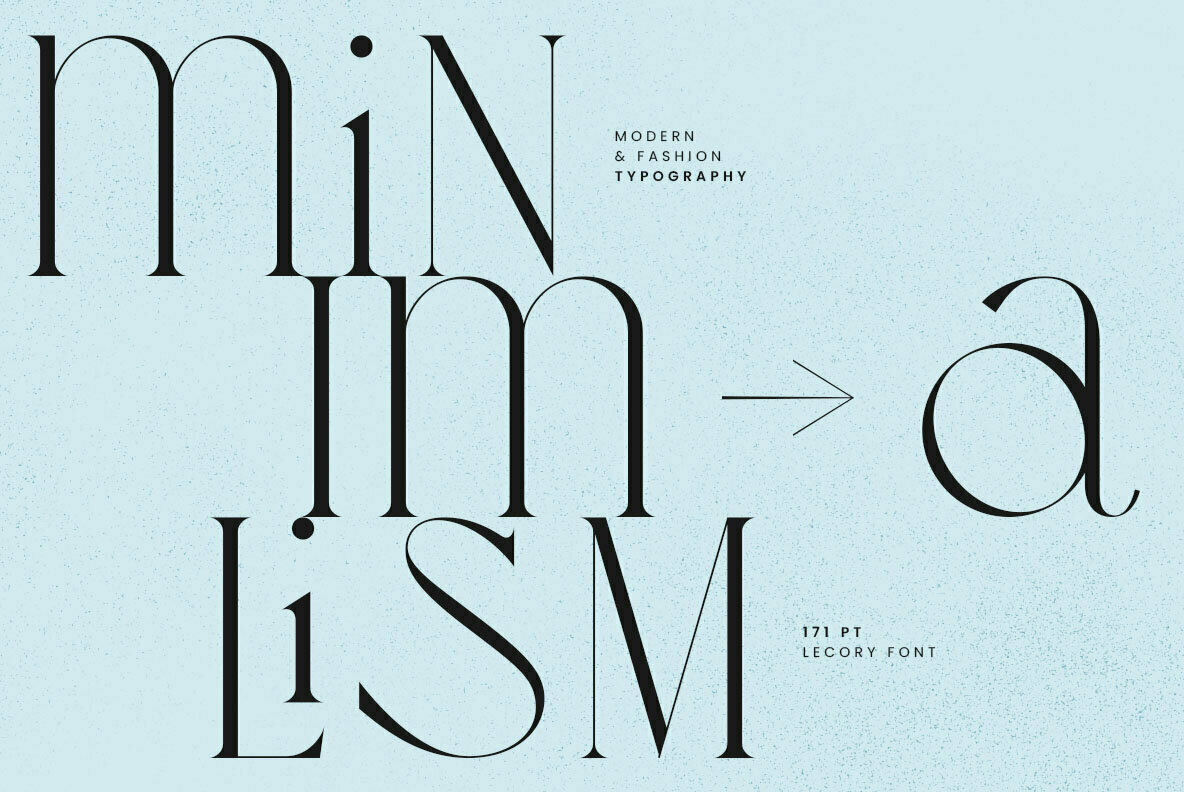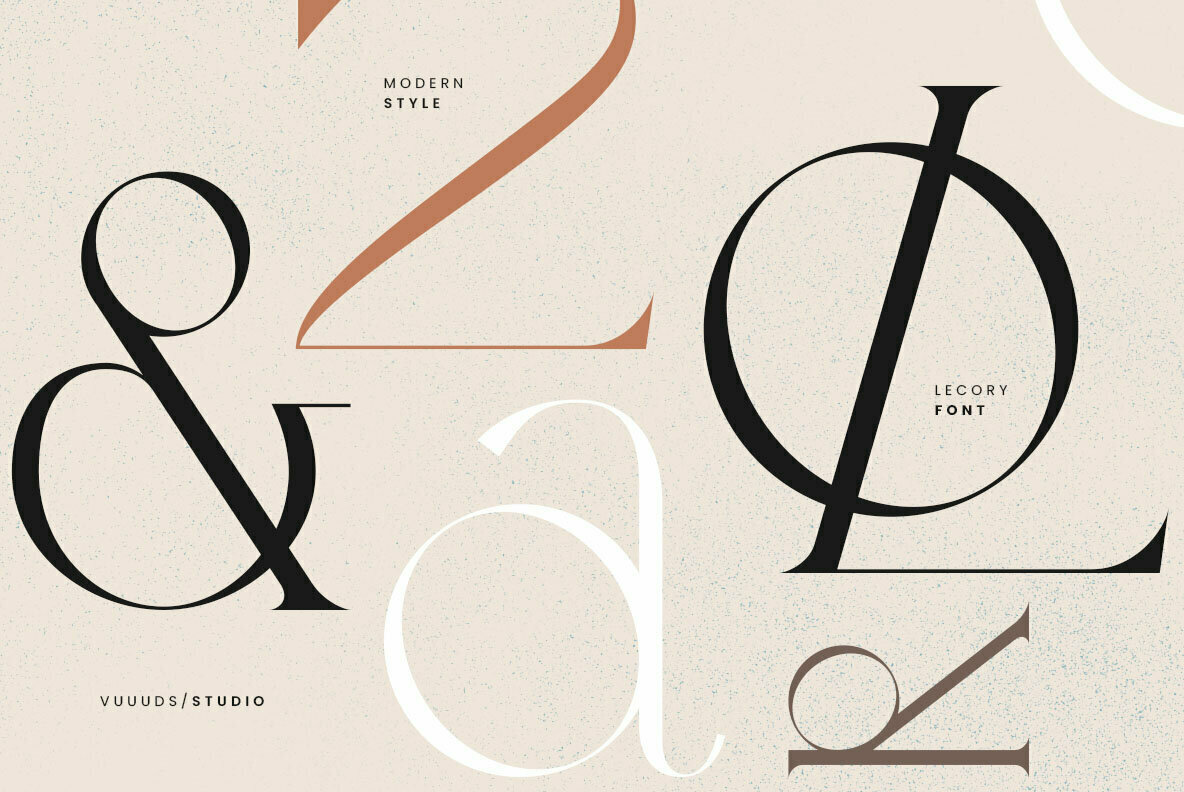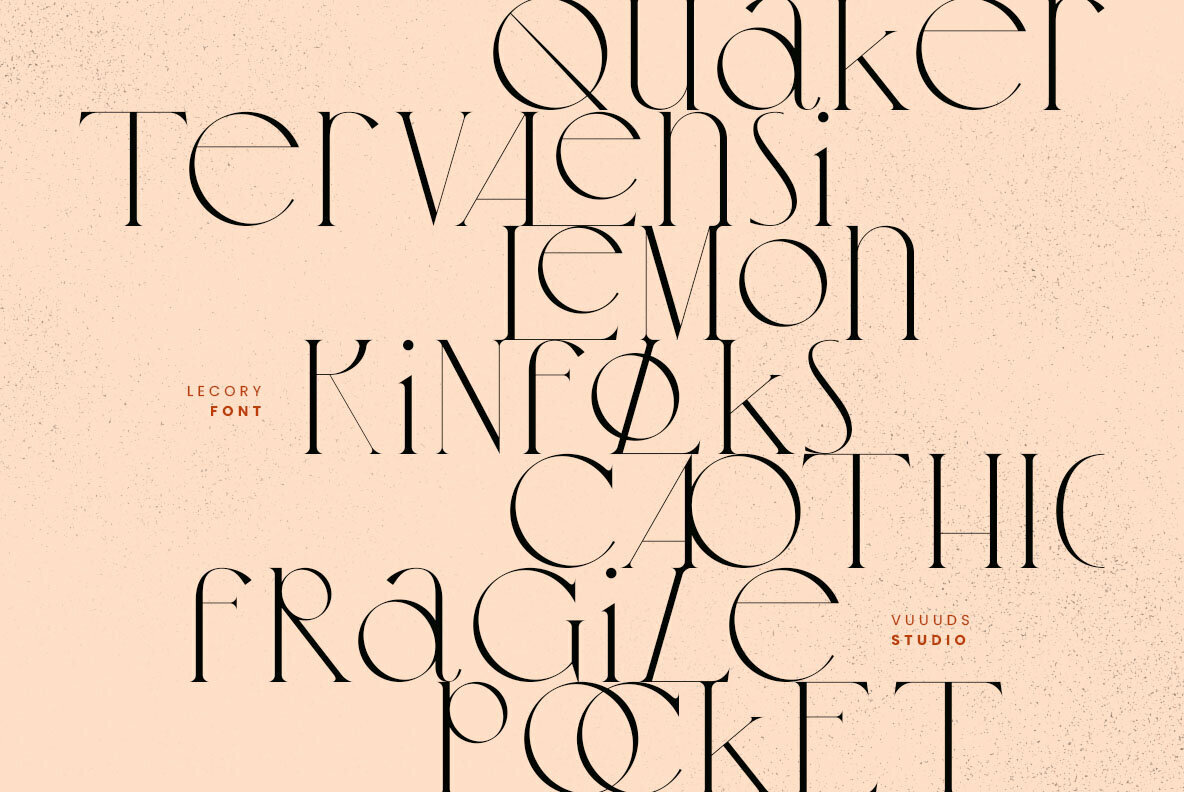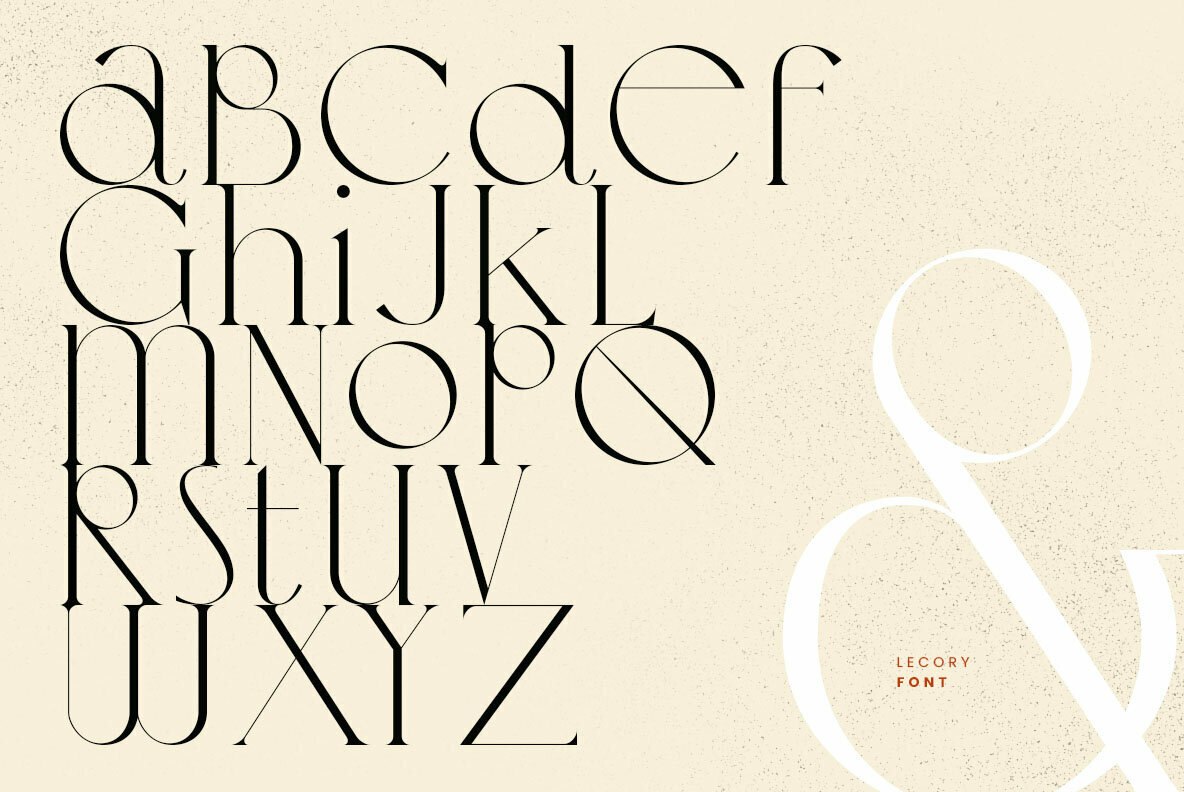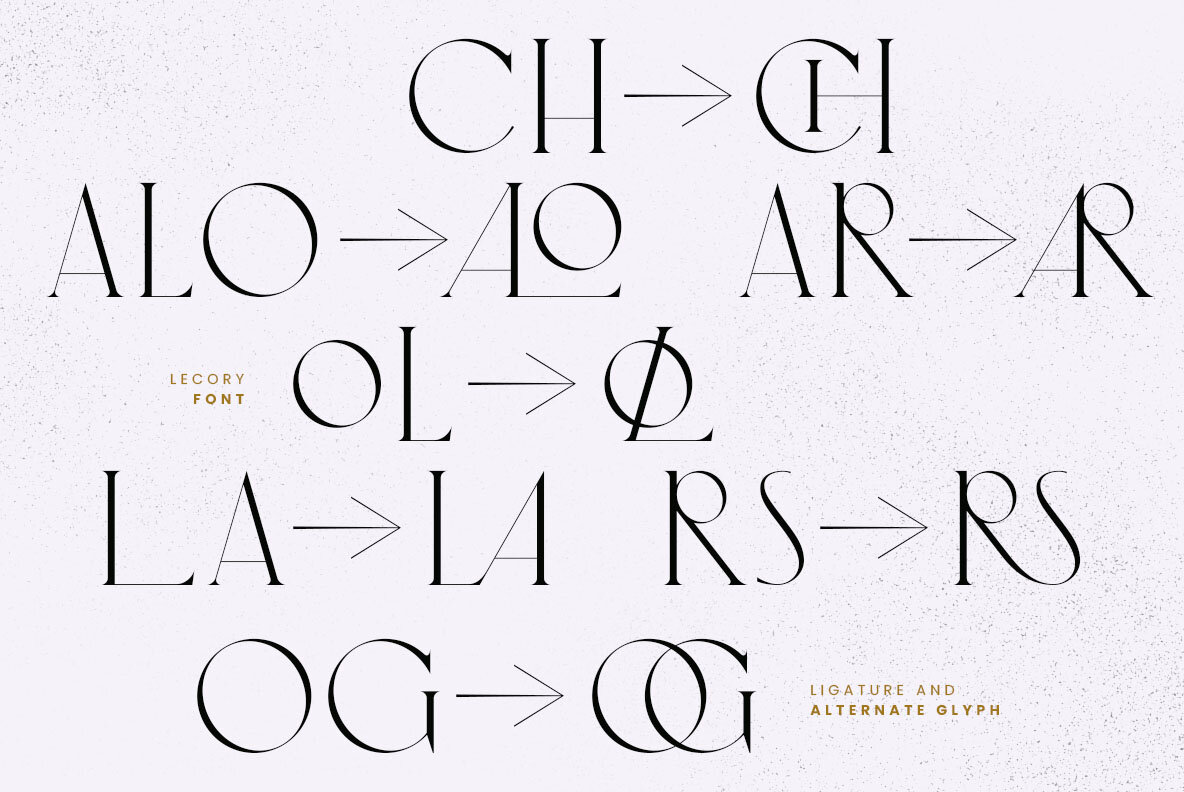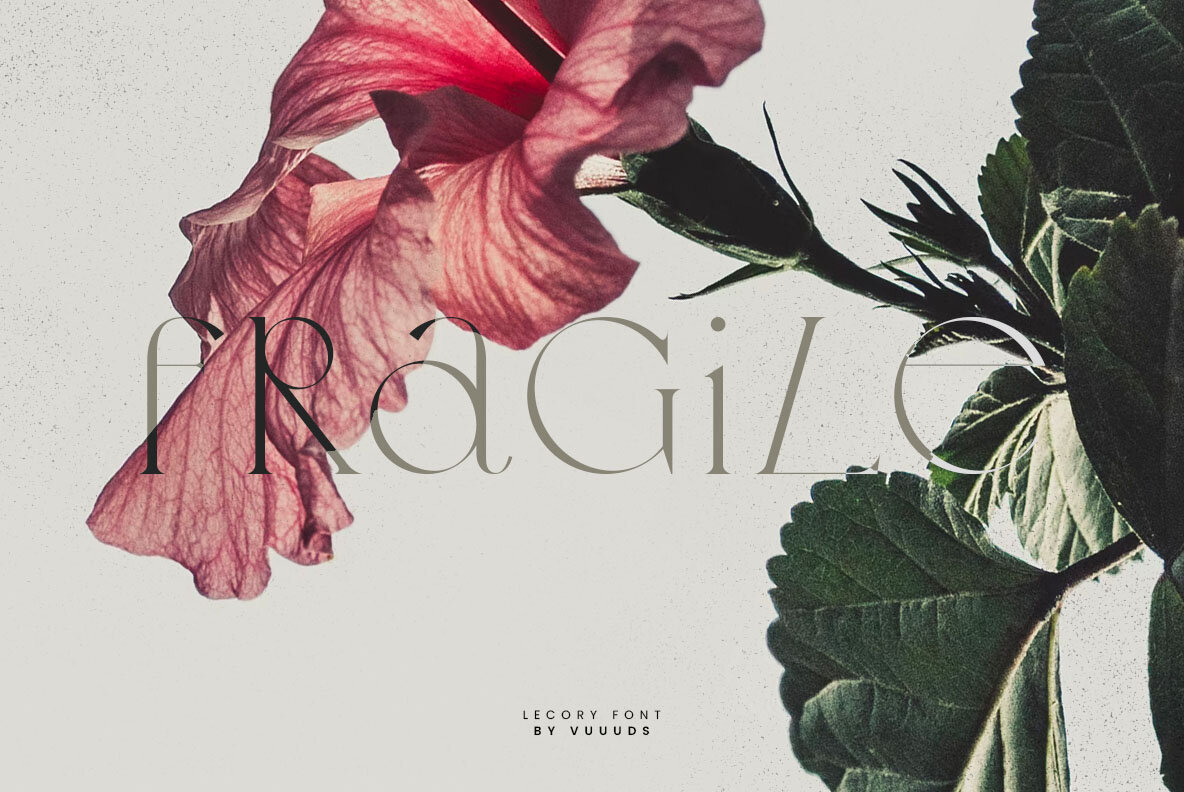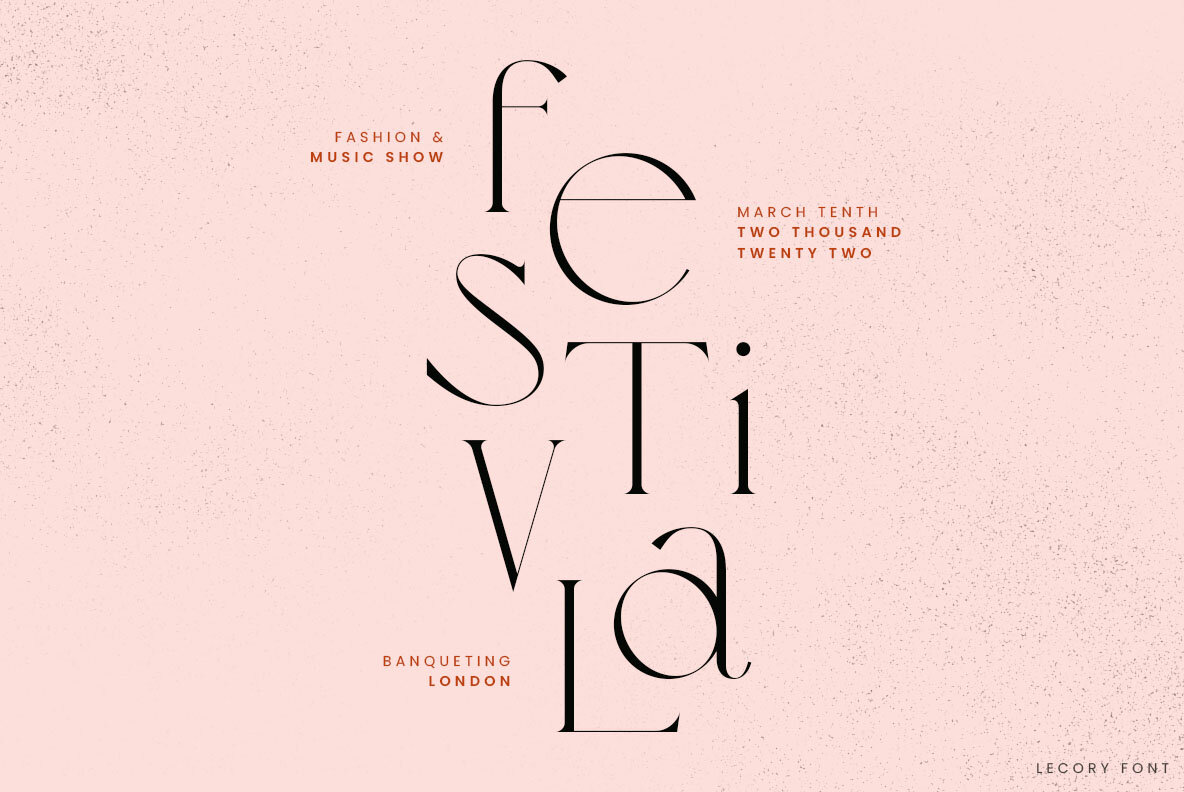
Lecory is a modern serif font that has been carefully crafted. It includes beautiful alternate glyphs that you can access via your graphics applications glyphs window. It is sleek and easy to read, making it perfect for any project. Lecory is the perfect font for any modern project.